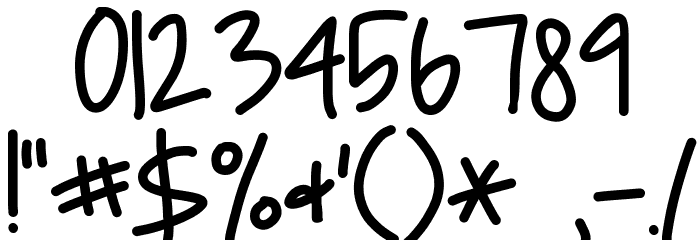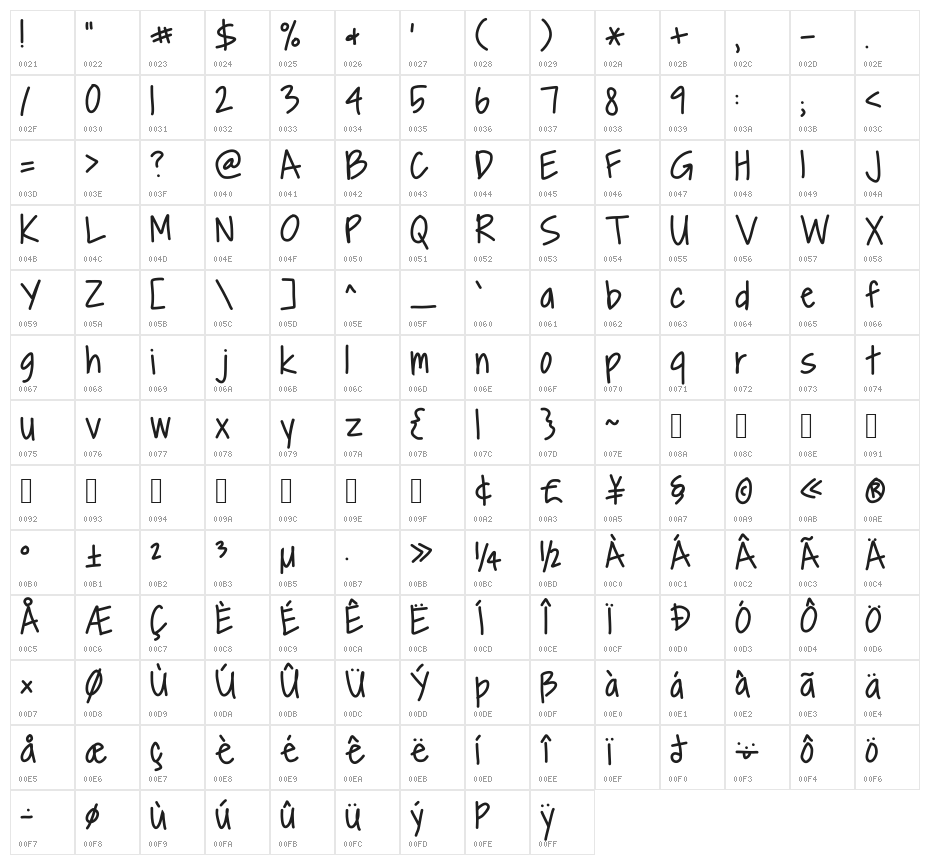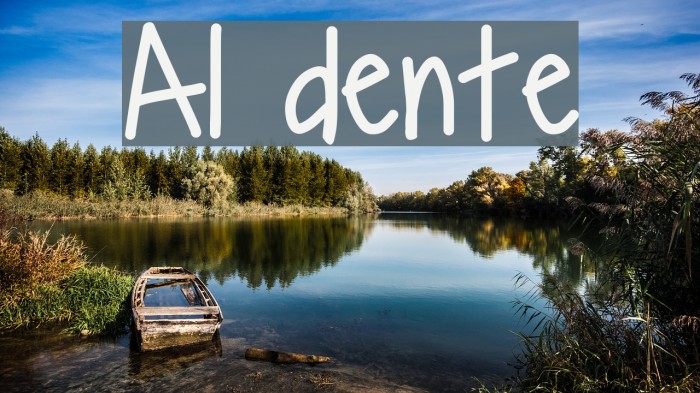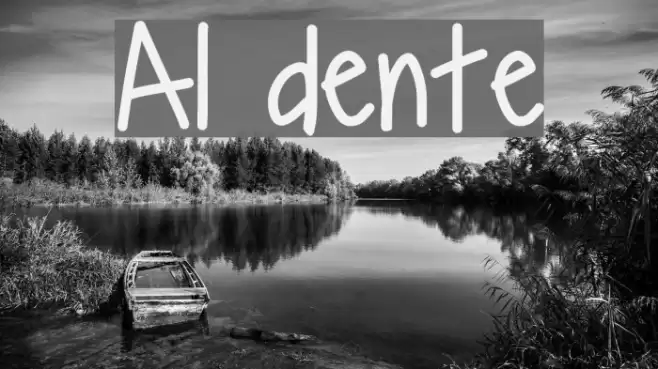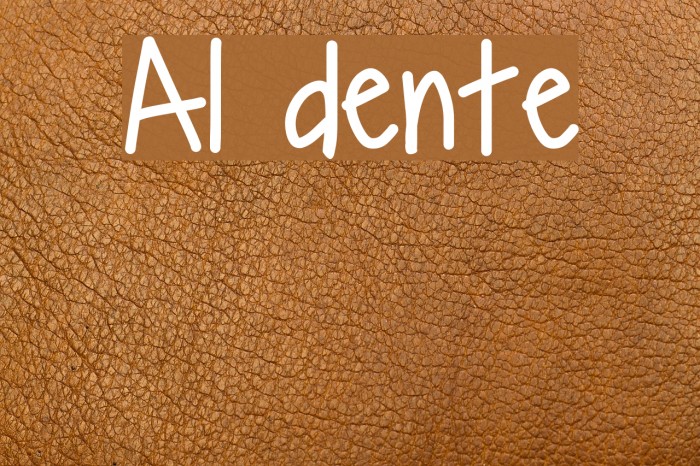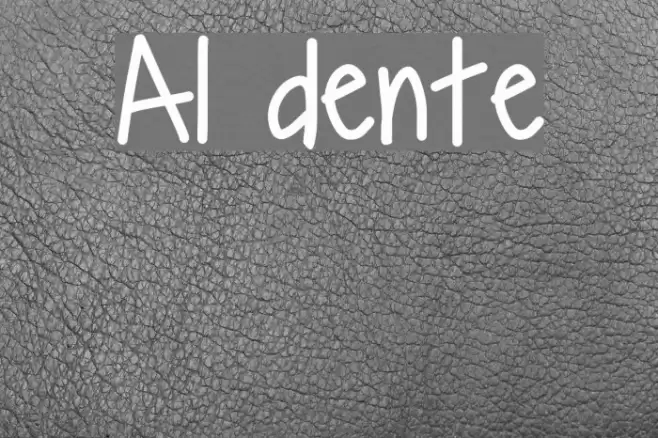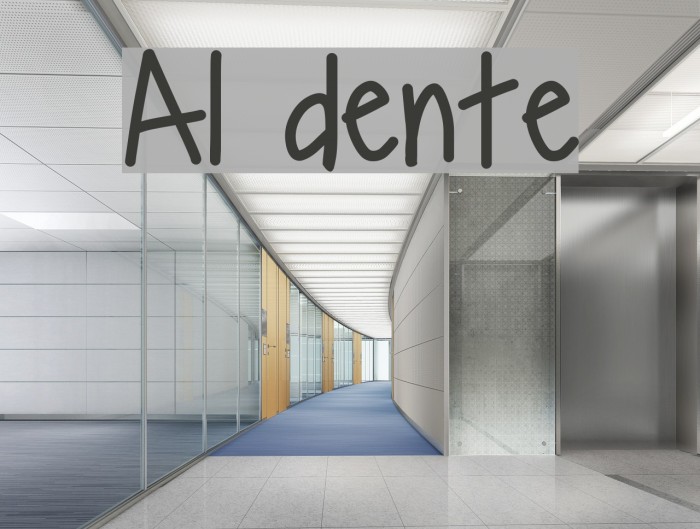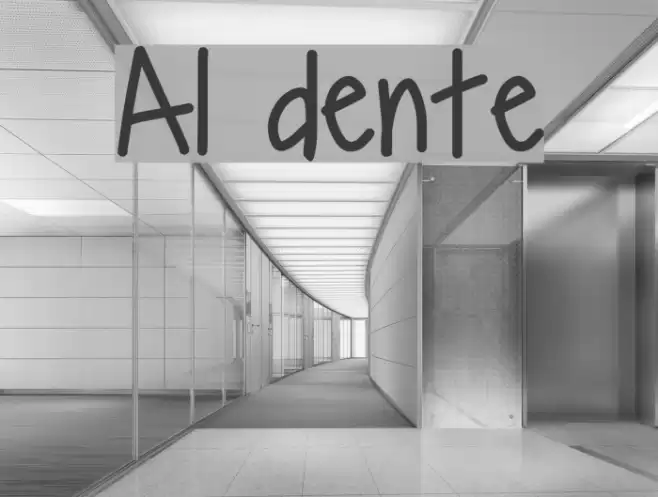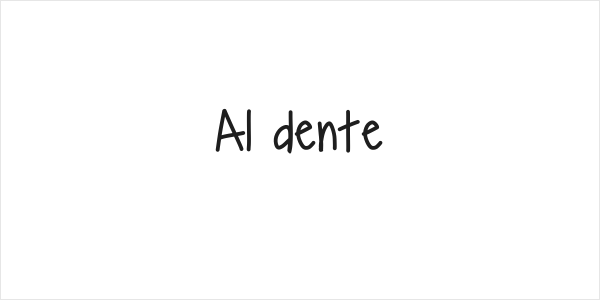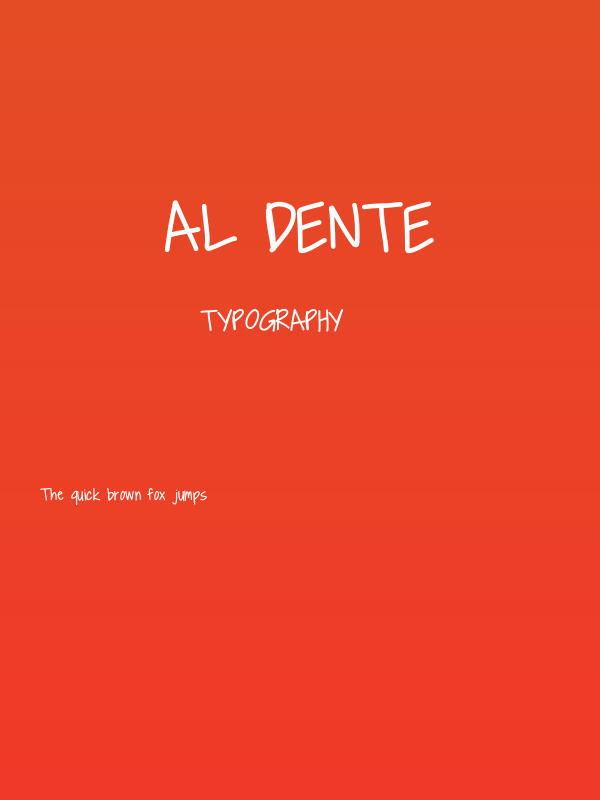
Al dente Font
Al dente Description
This font features a playful and casual handwritten style, characterized by its smooth and rounded letterforms. The uppercase and lowercase letters maintain a consistent flow, giving it a friendly and approachable appearance. The numerals and special characters are crafted with the same informal touch, making them blend seamlessly with the alphabet. The strokes are uniform in thickness, providing a balanced and harmonious look. This font is ideal for projects that require a personal and informal tone, such as invitations, greeting cards, or casual branding.
| Proposed Projects | Ideal for invitations, greeting cards, casual branding, and personal projects. |